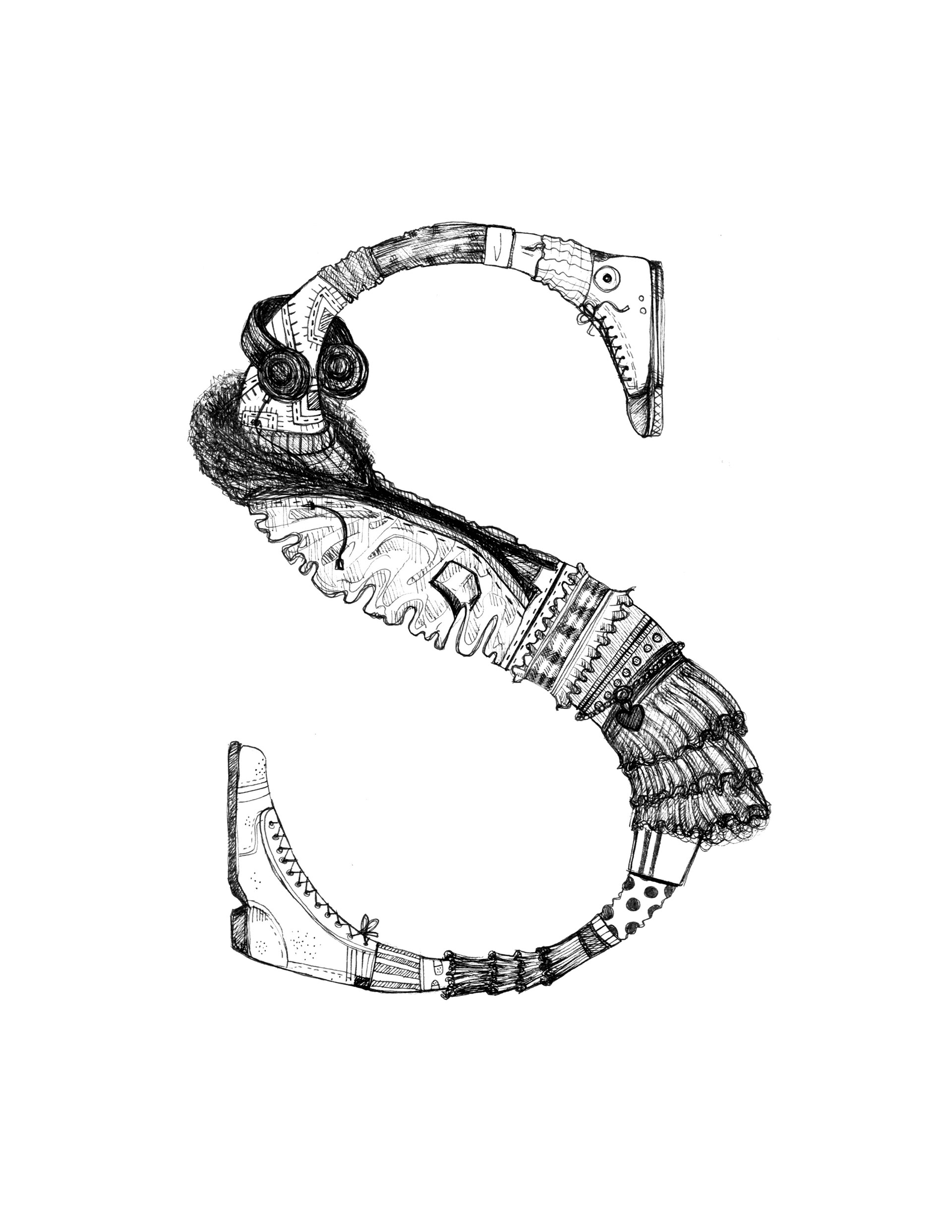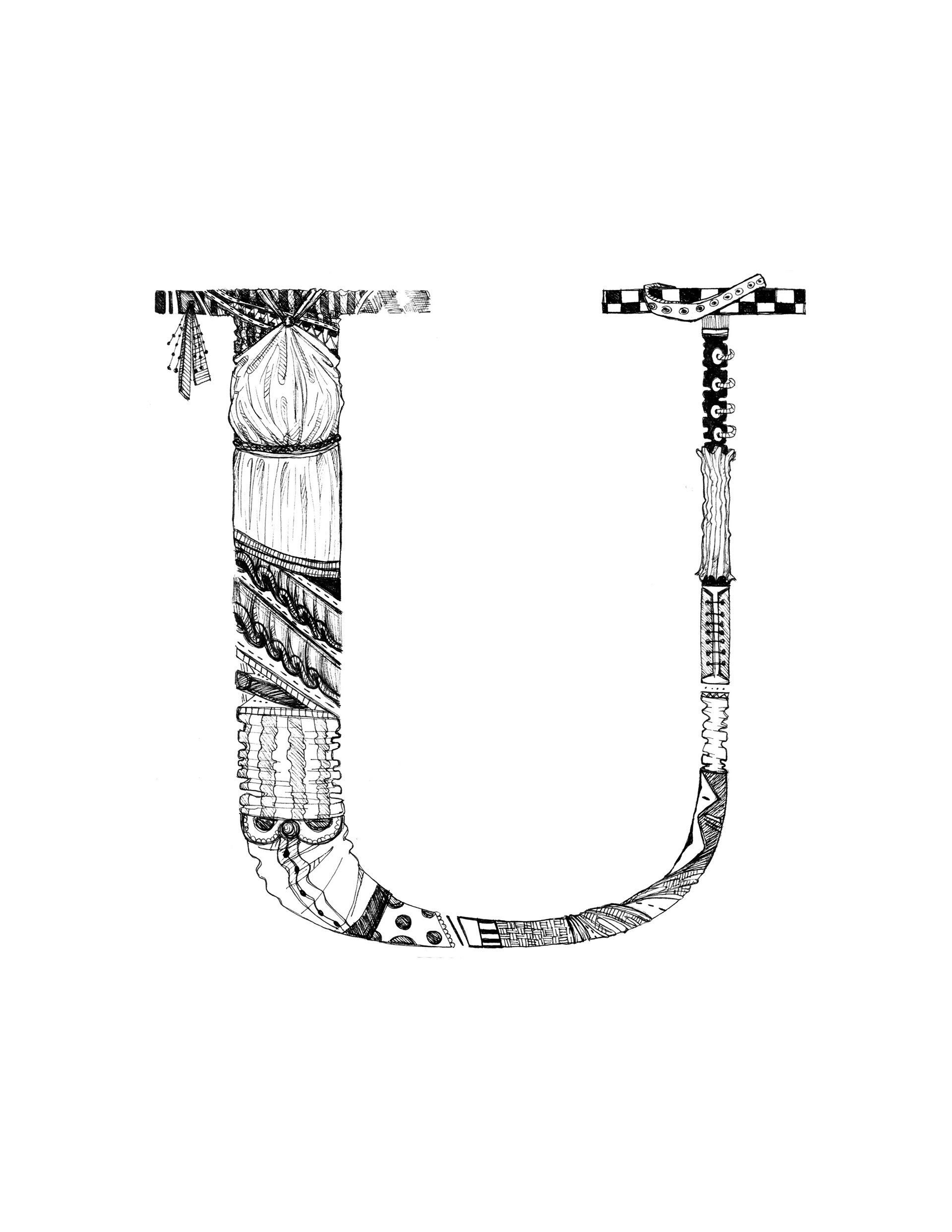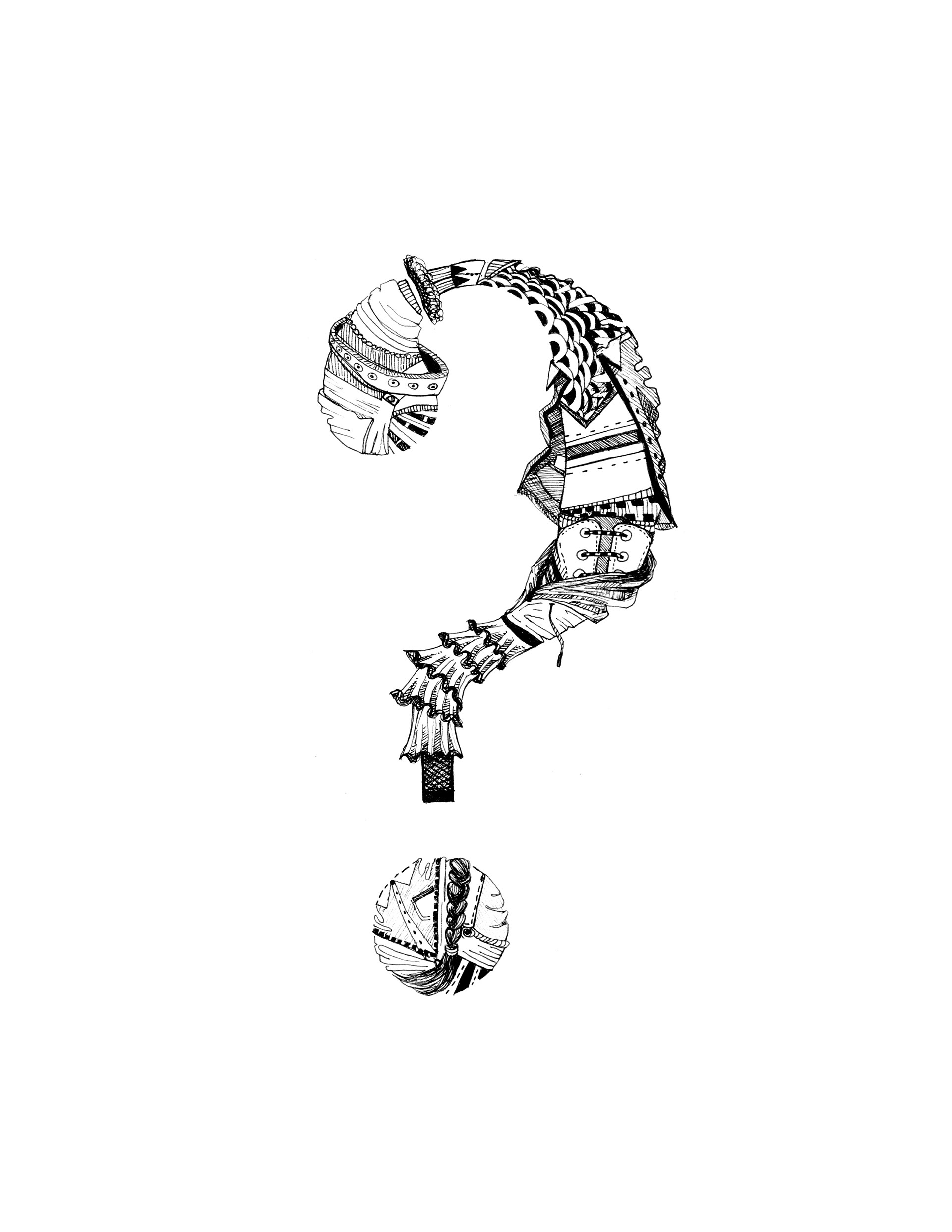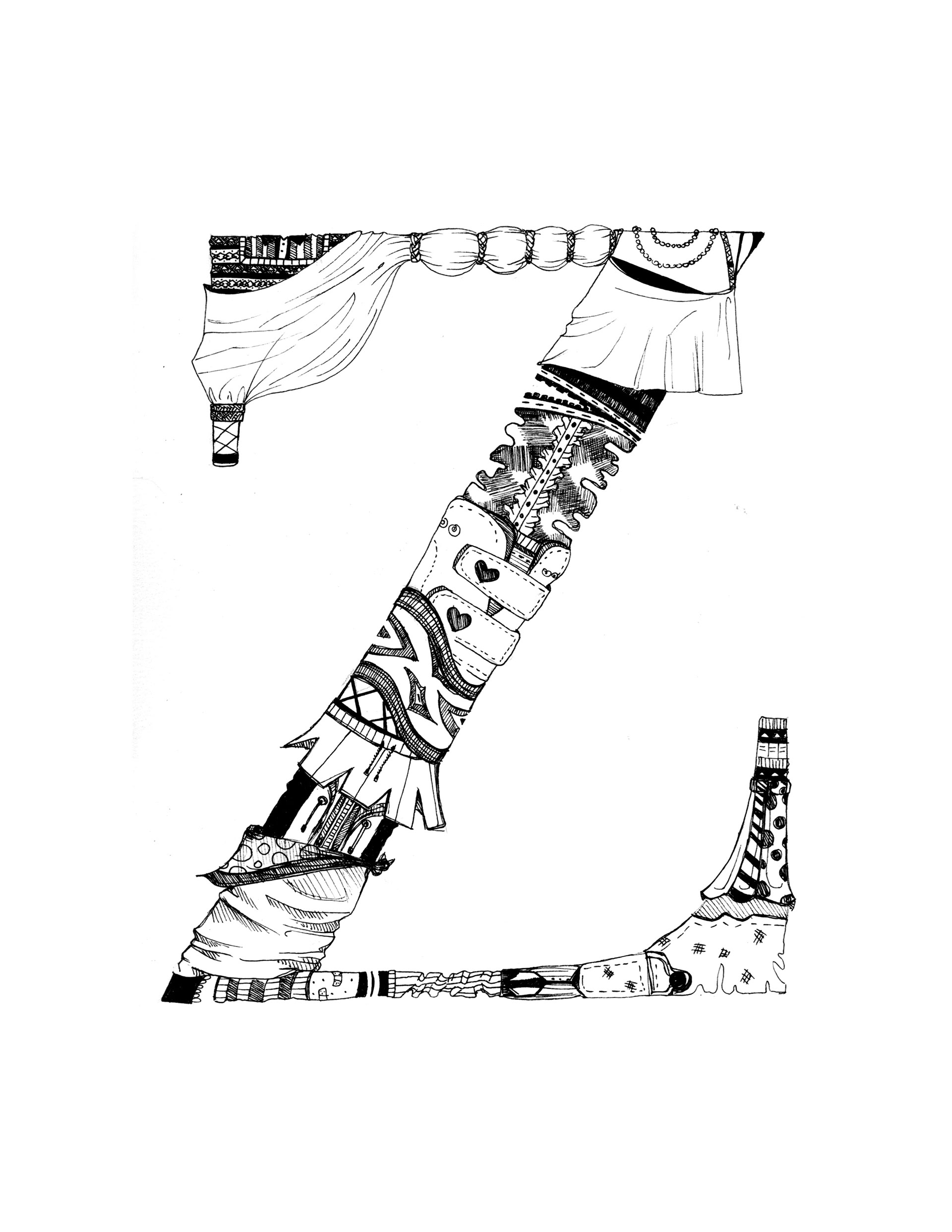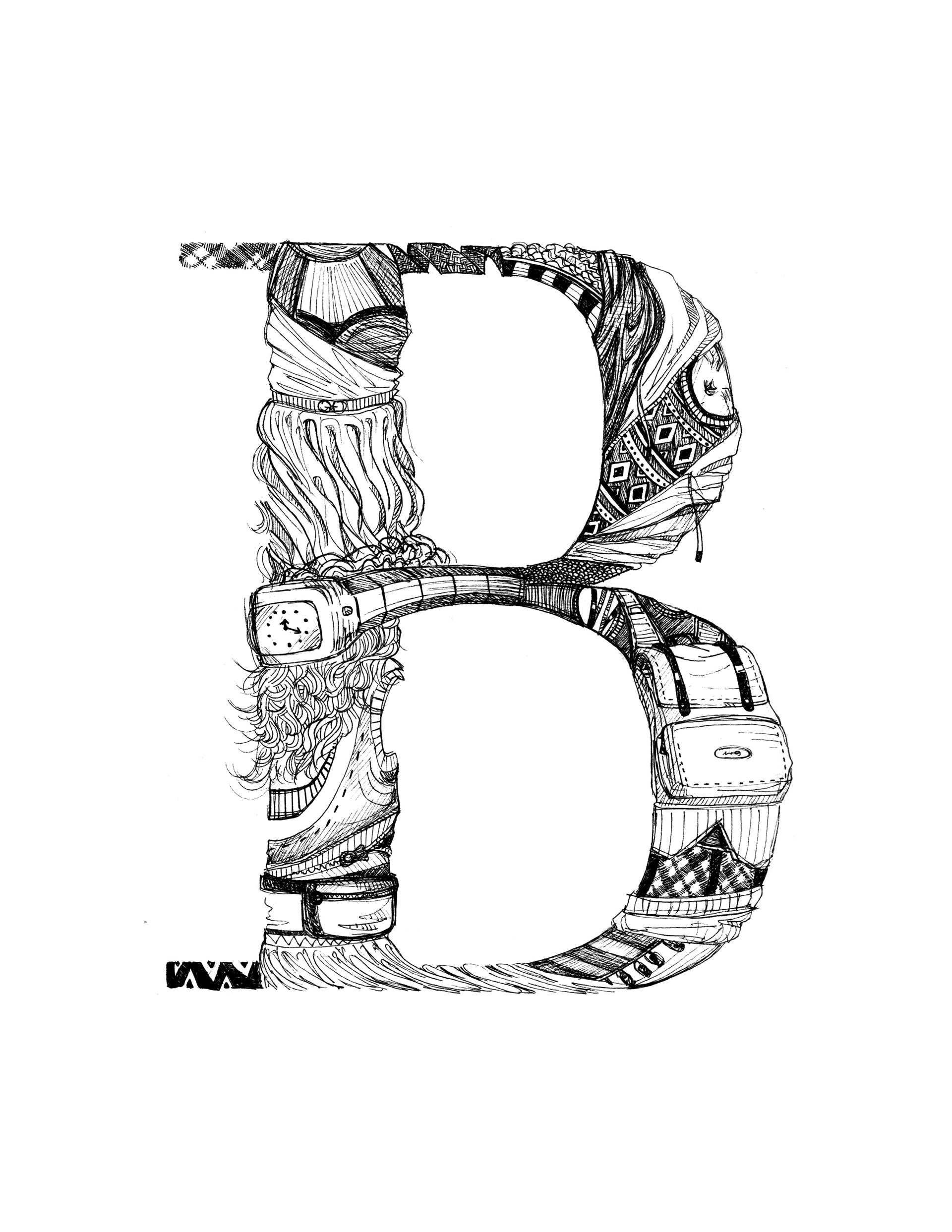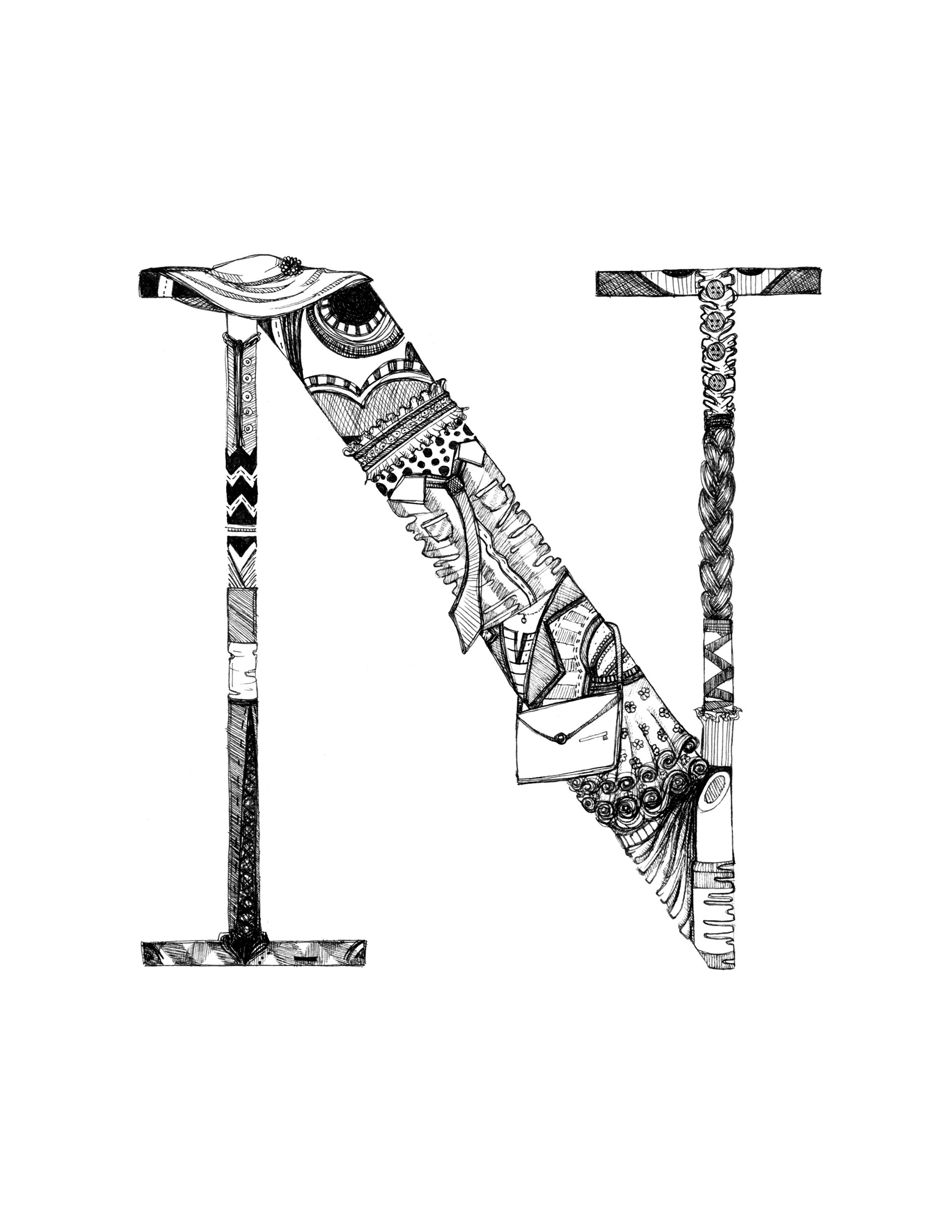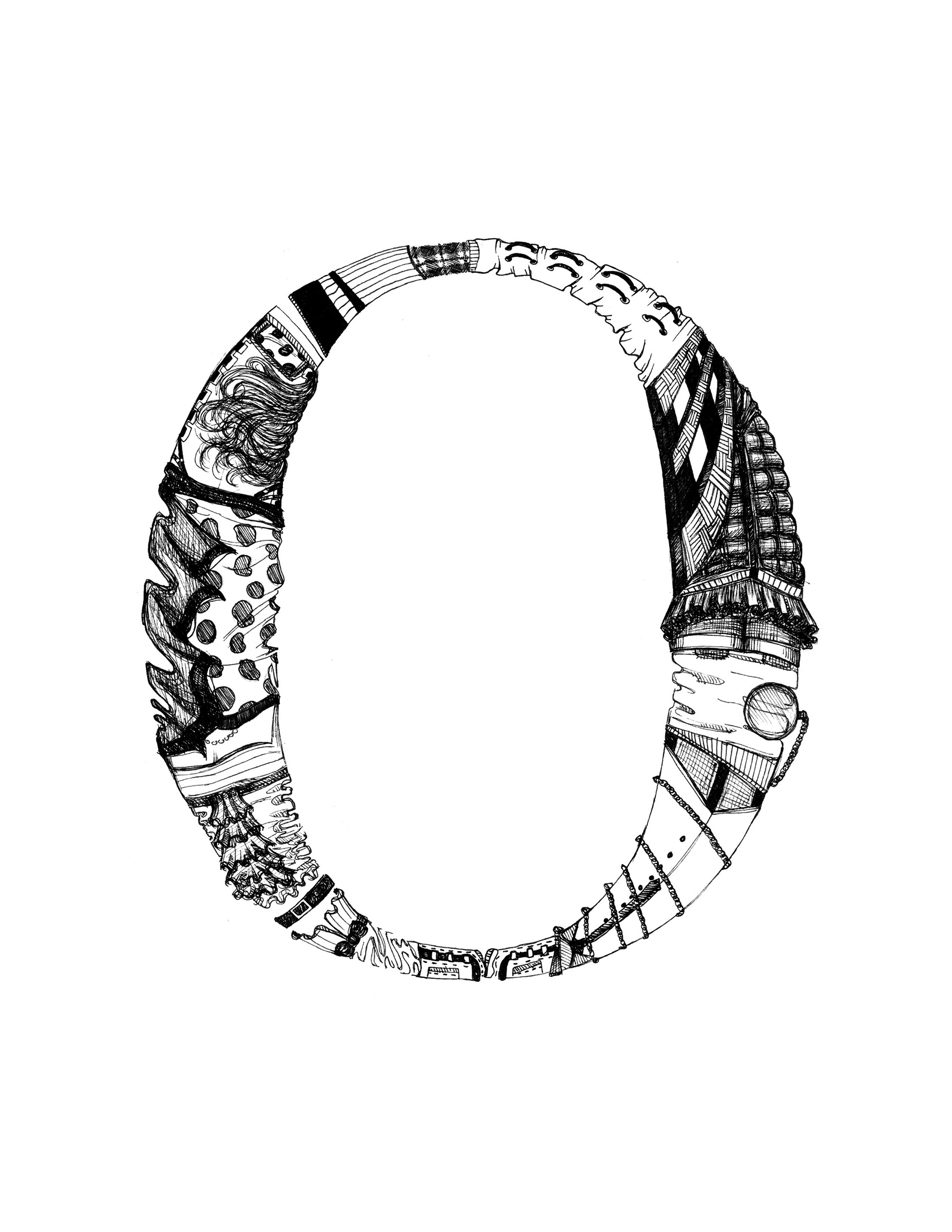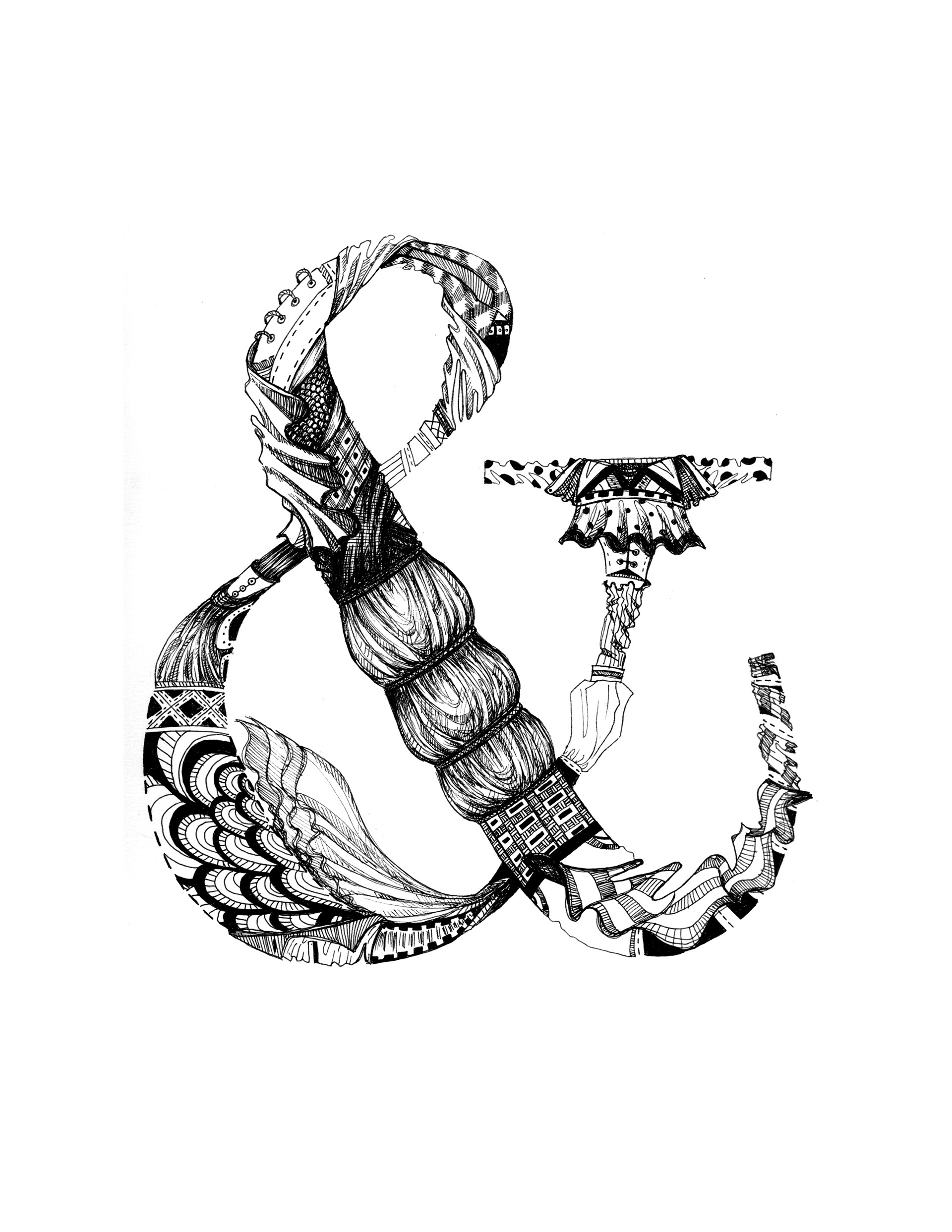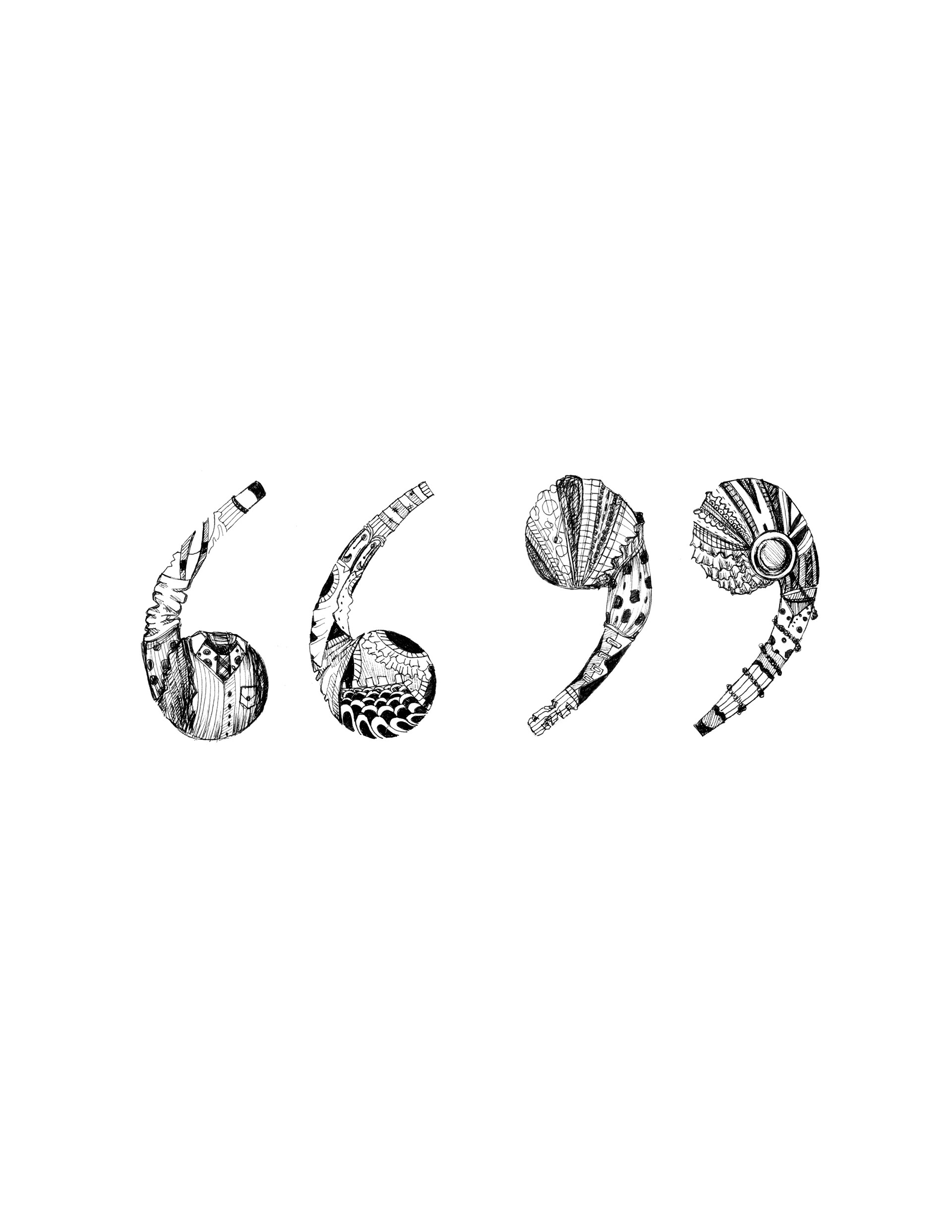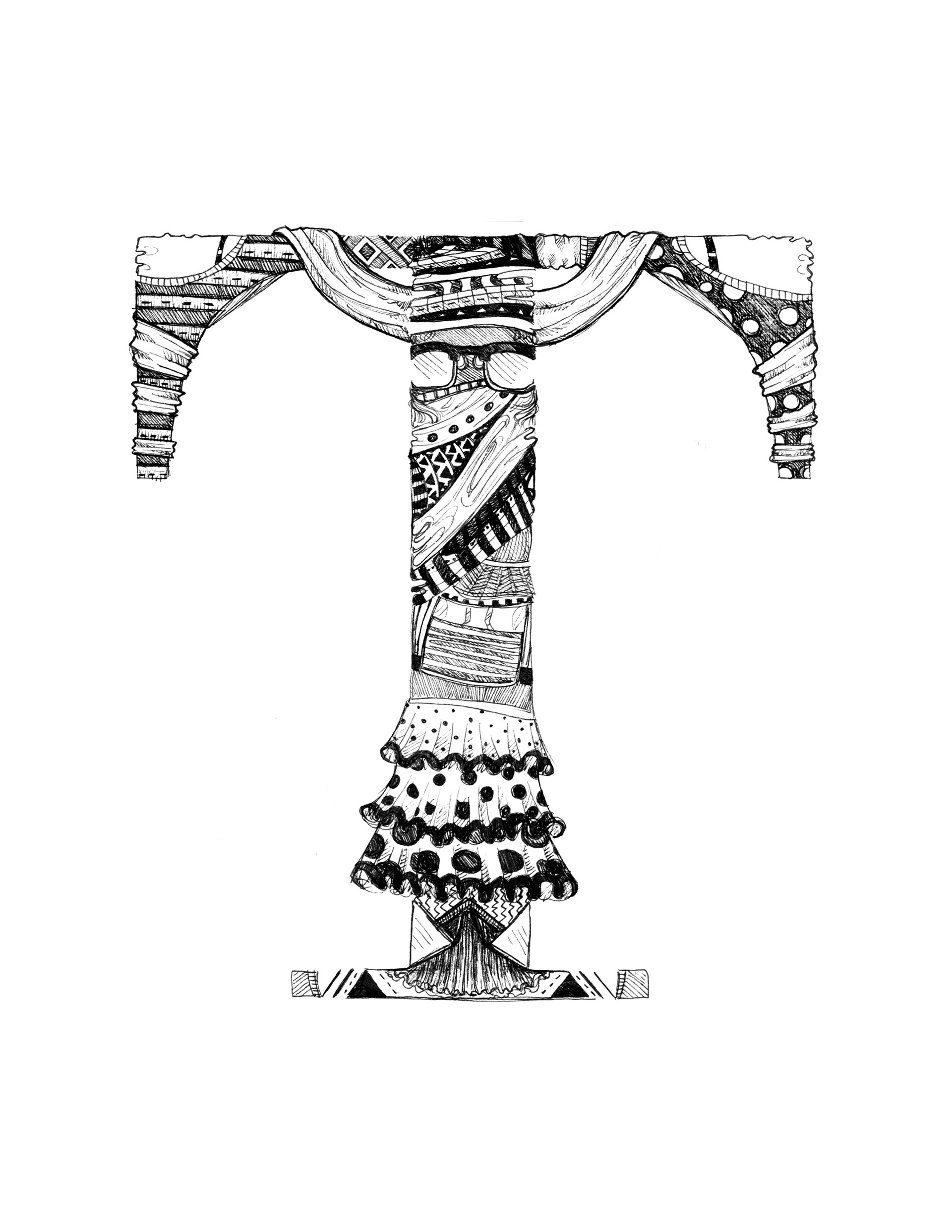
Couturier is a hand-drawn typeface inspired by clothing articles and fashion accessories. The name couturier means "person involved with the fashion industry". The typeface is meant to be playful and elegant. Walbaum was used as a reference during the process.